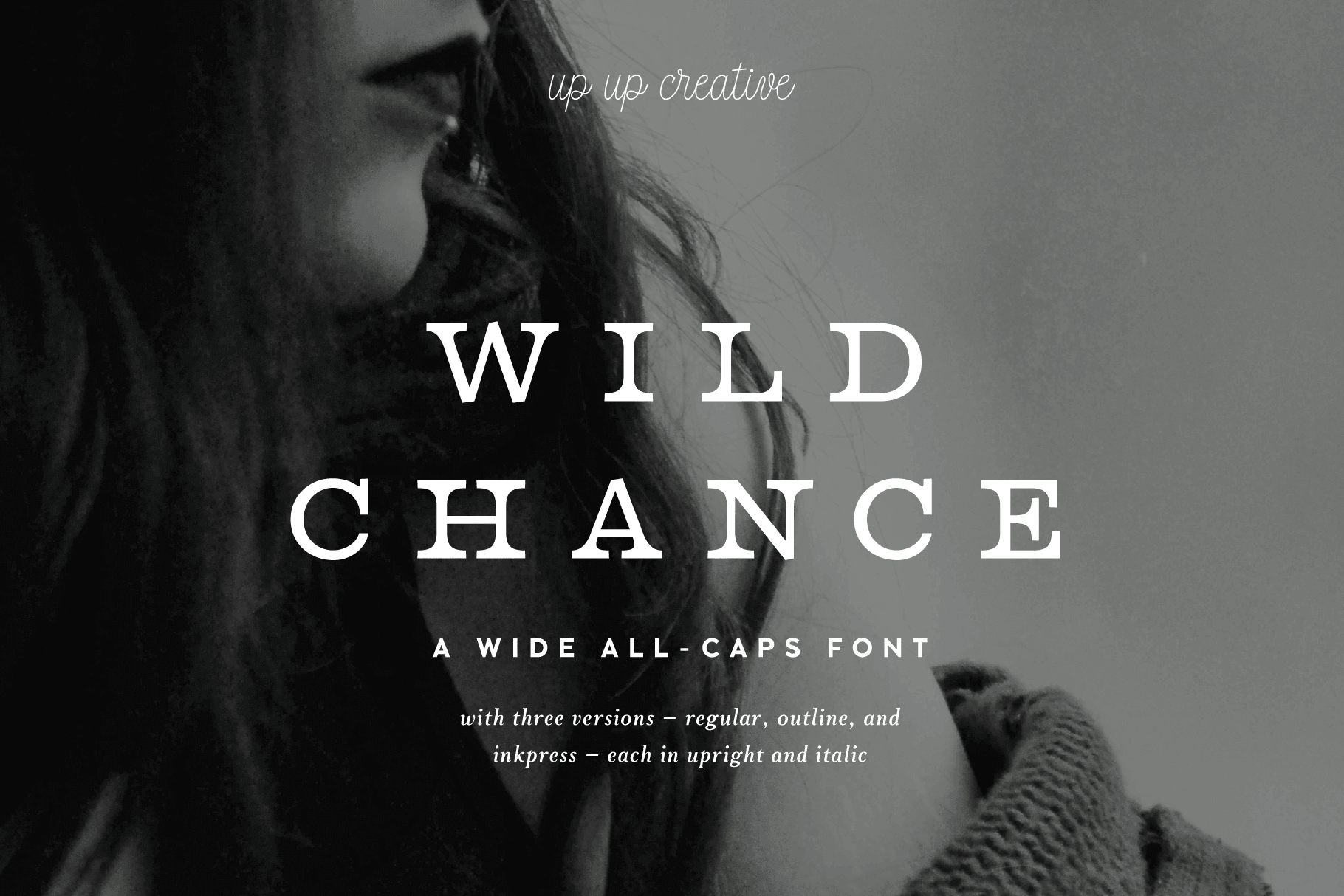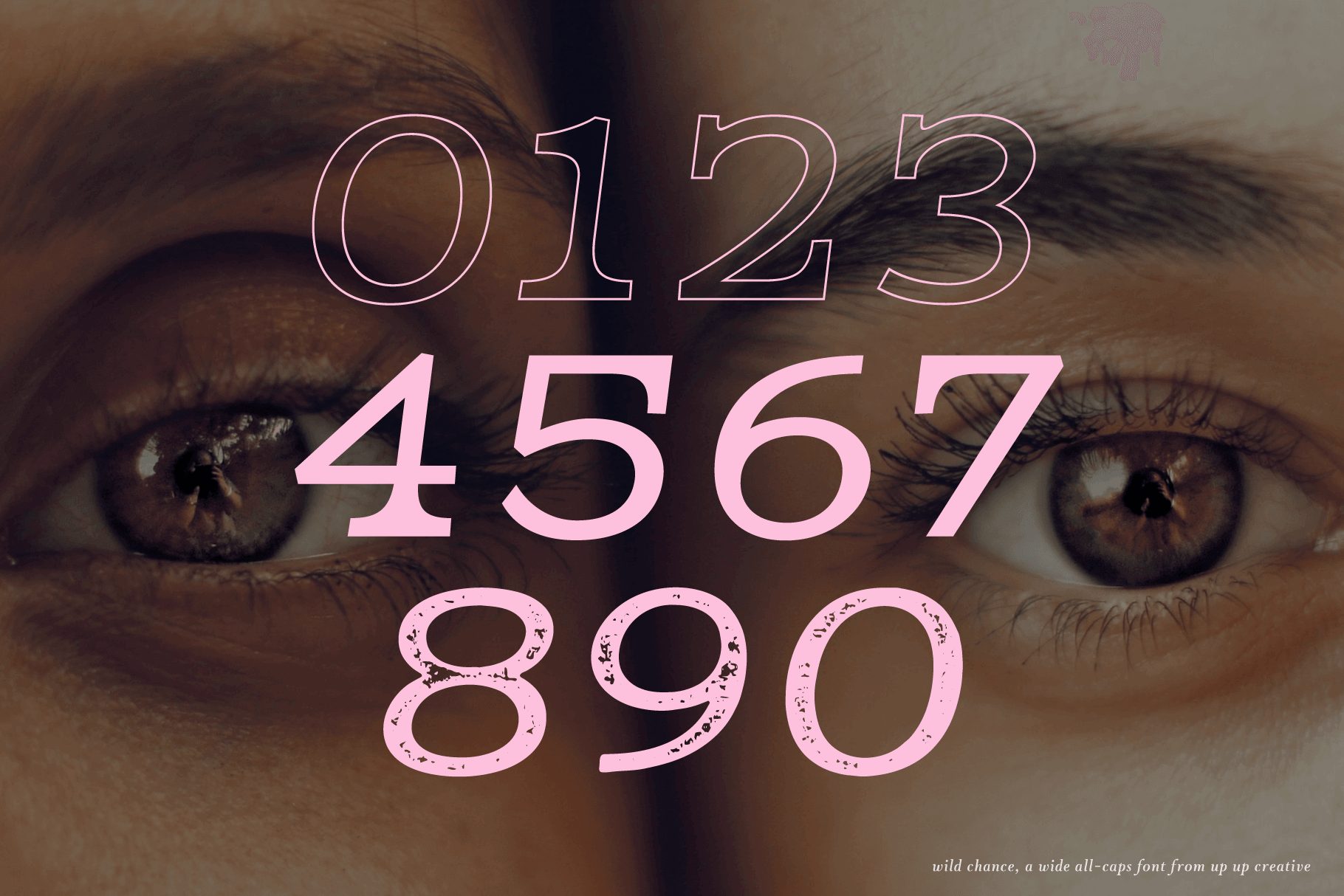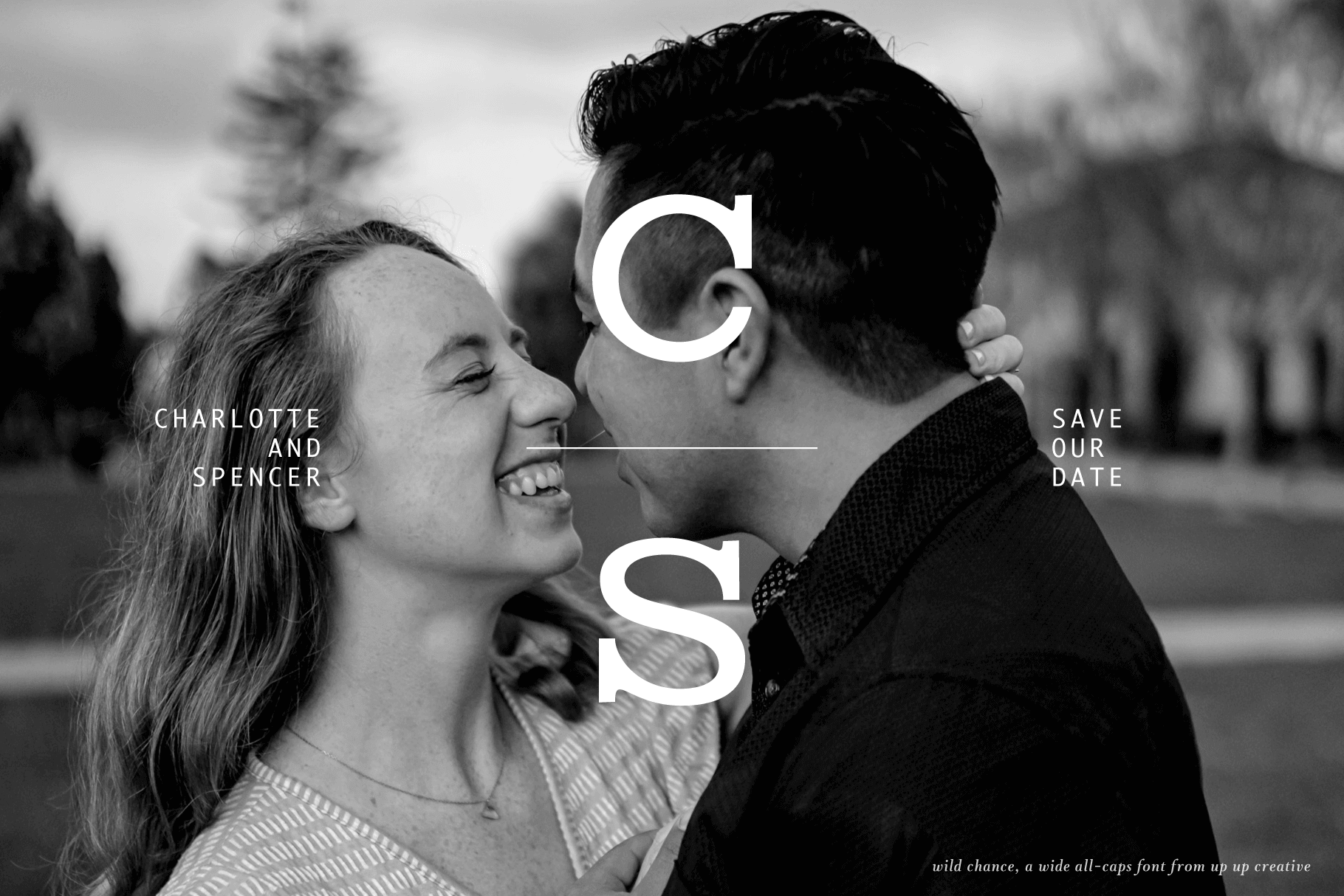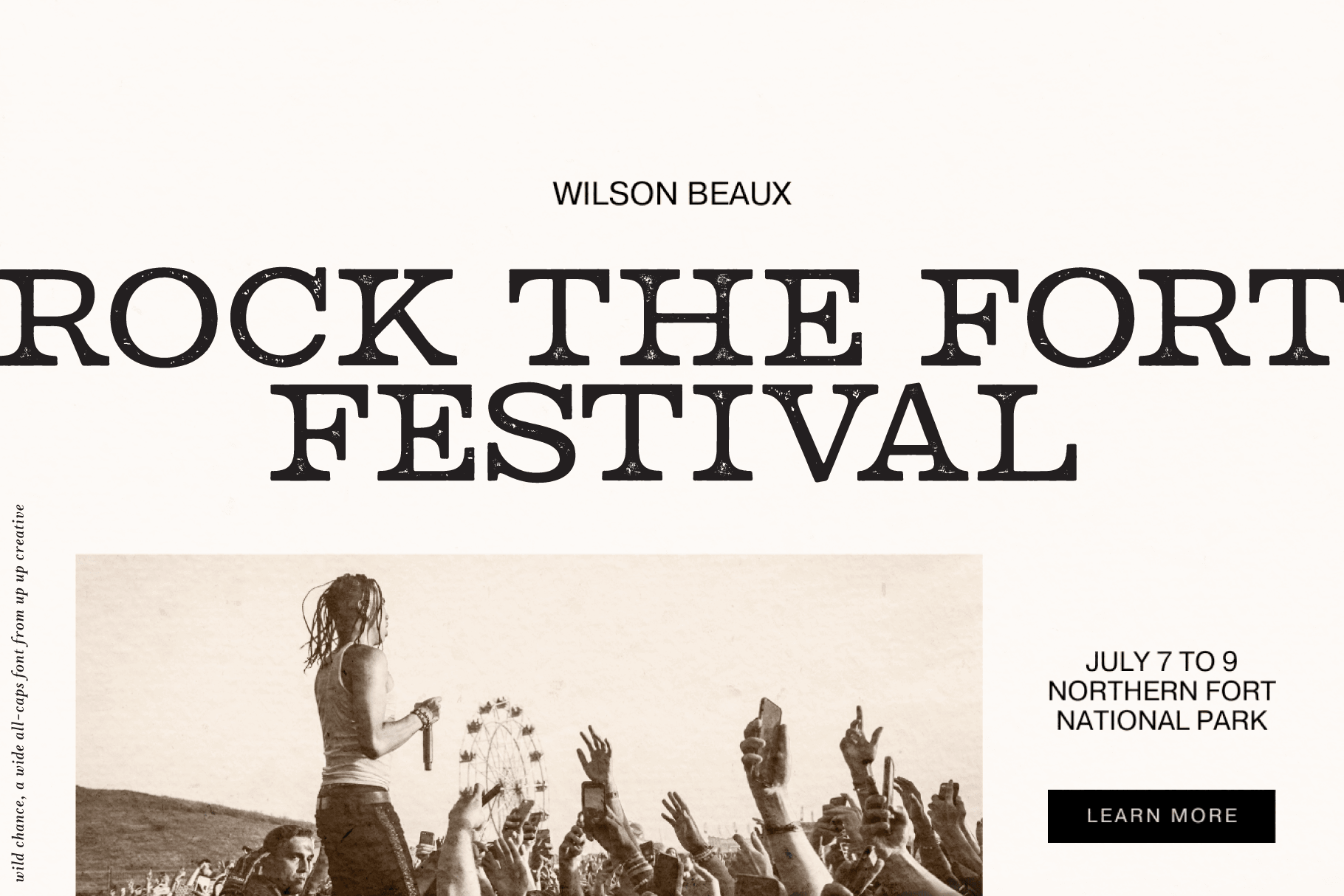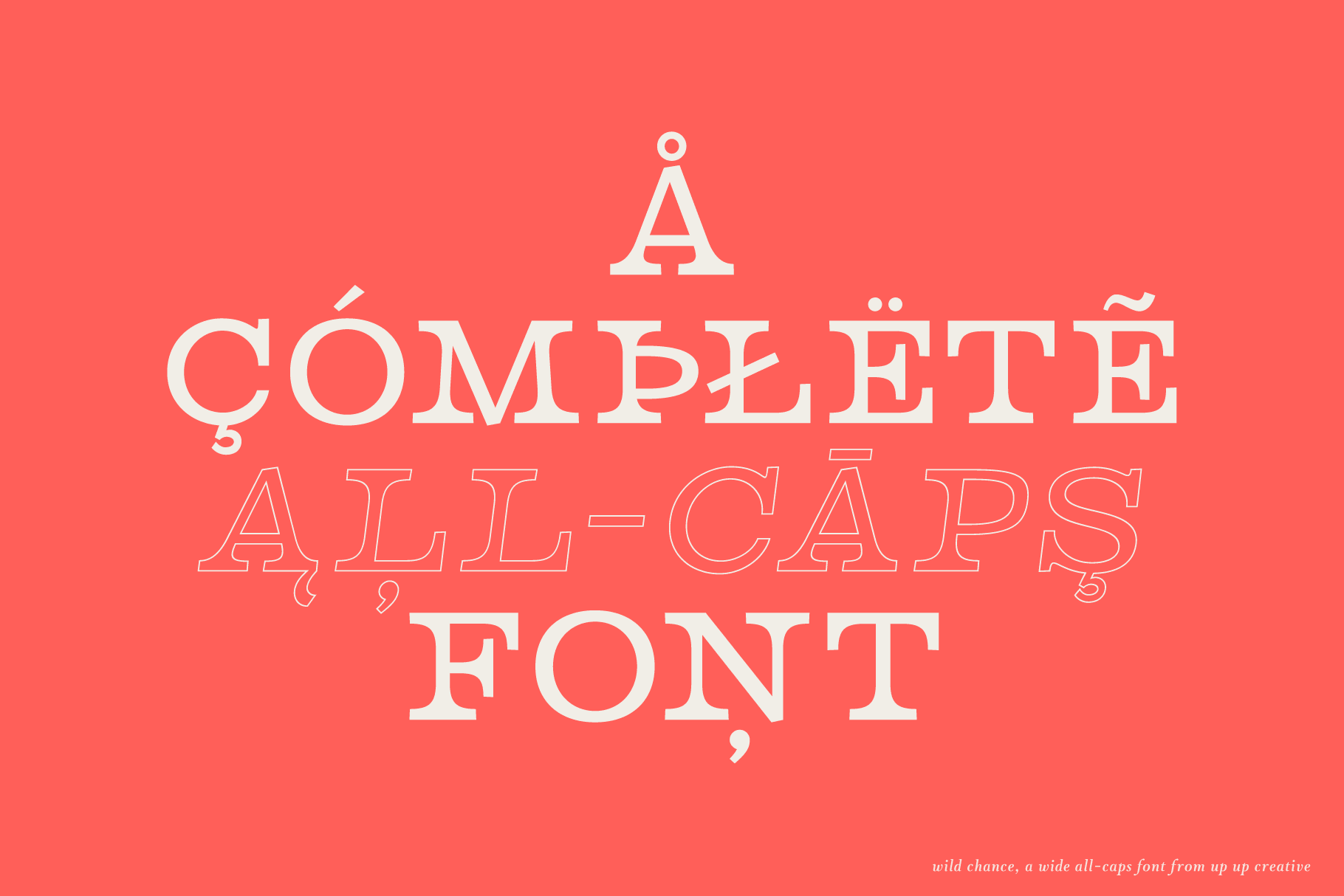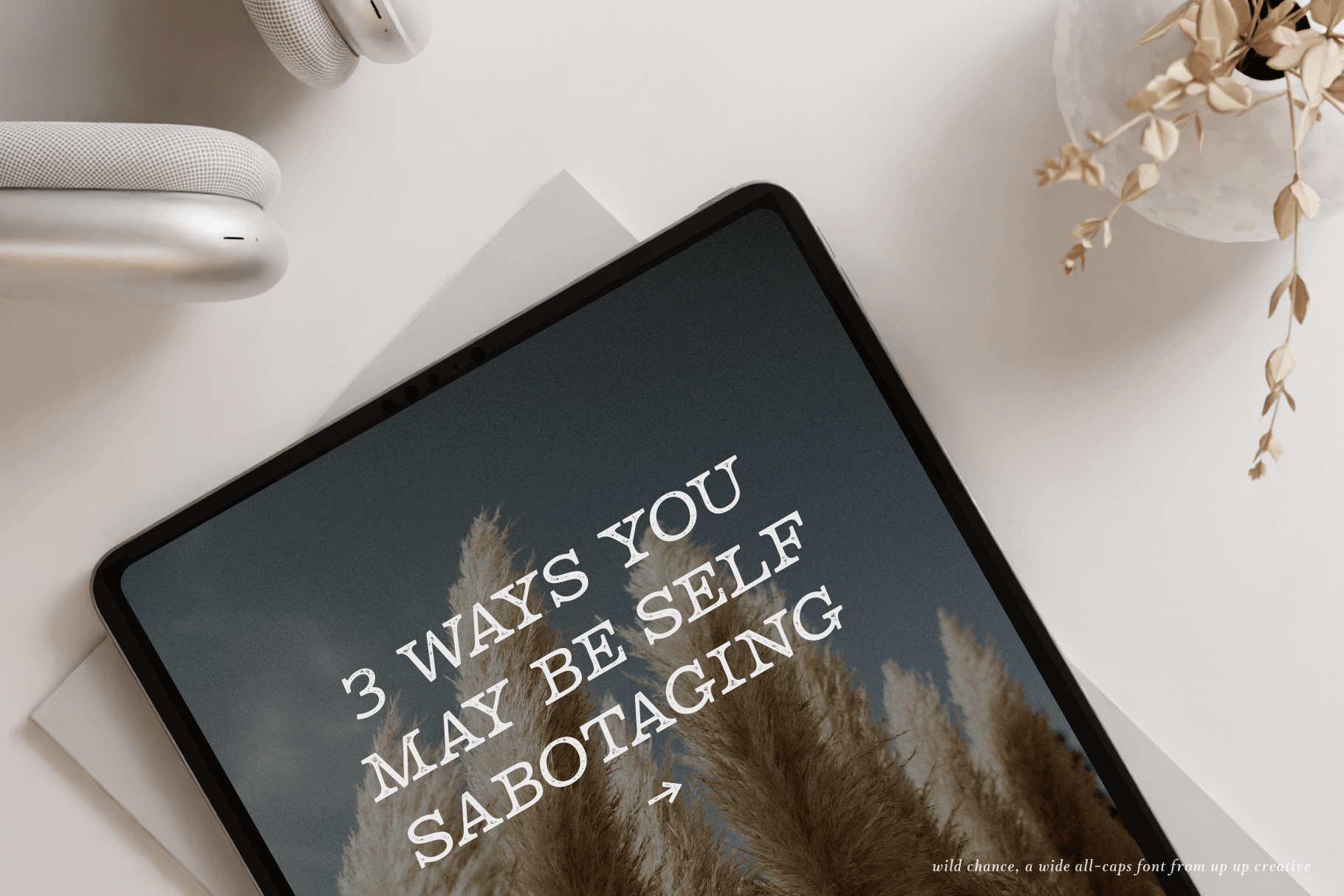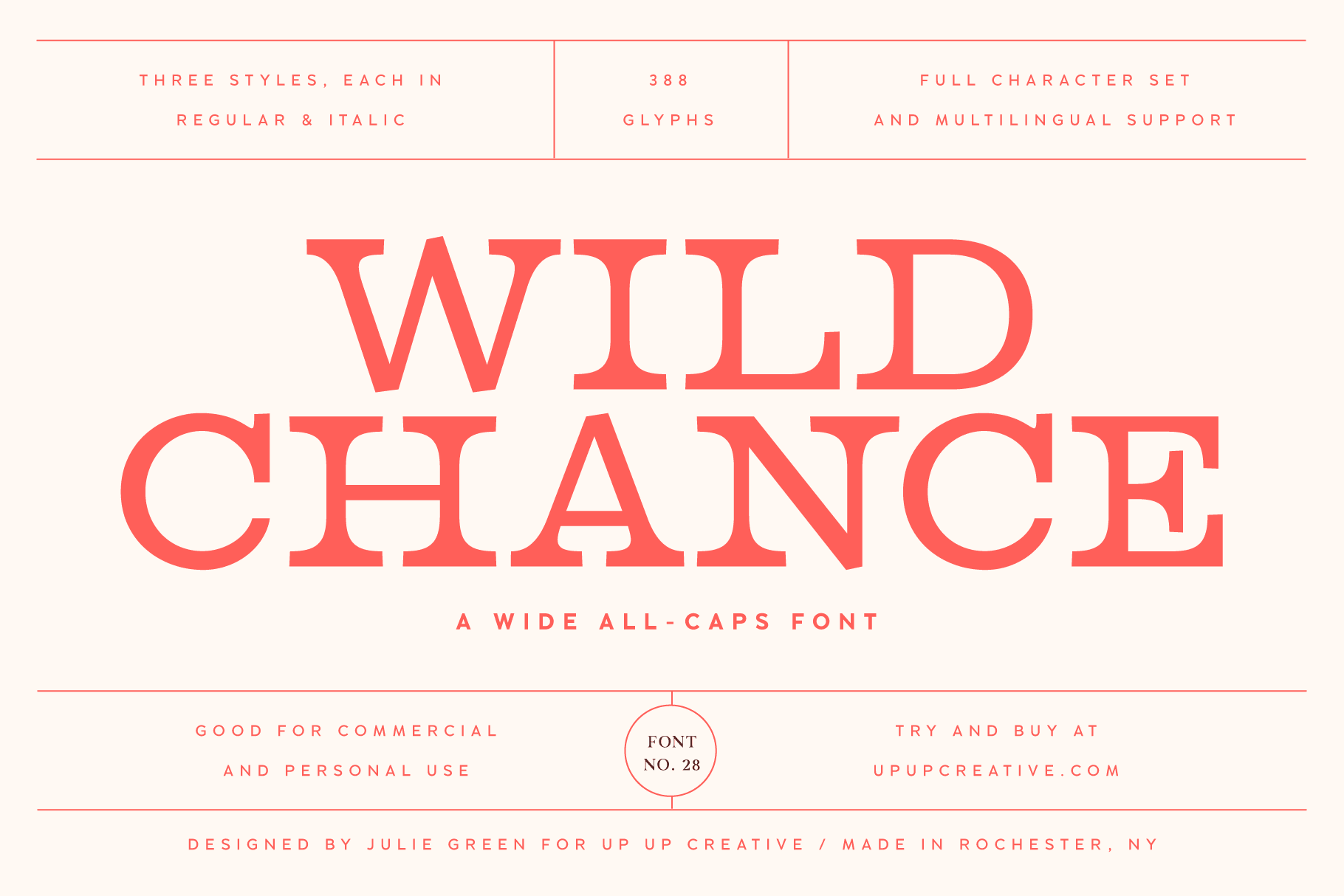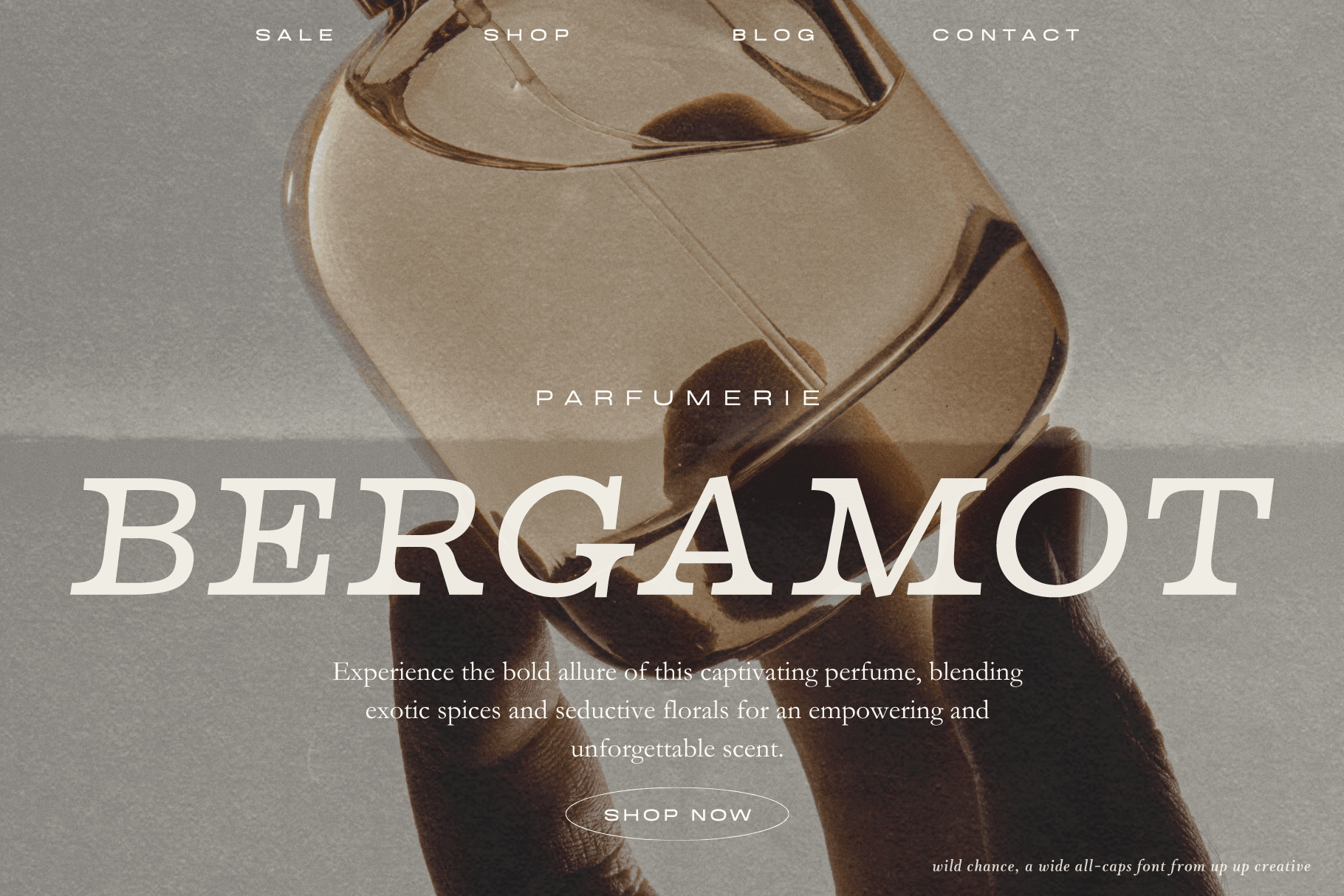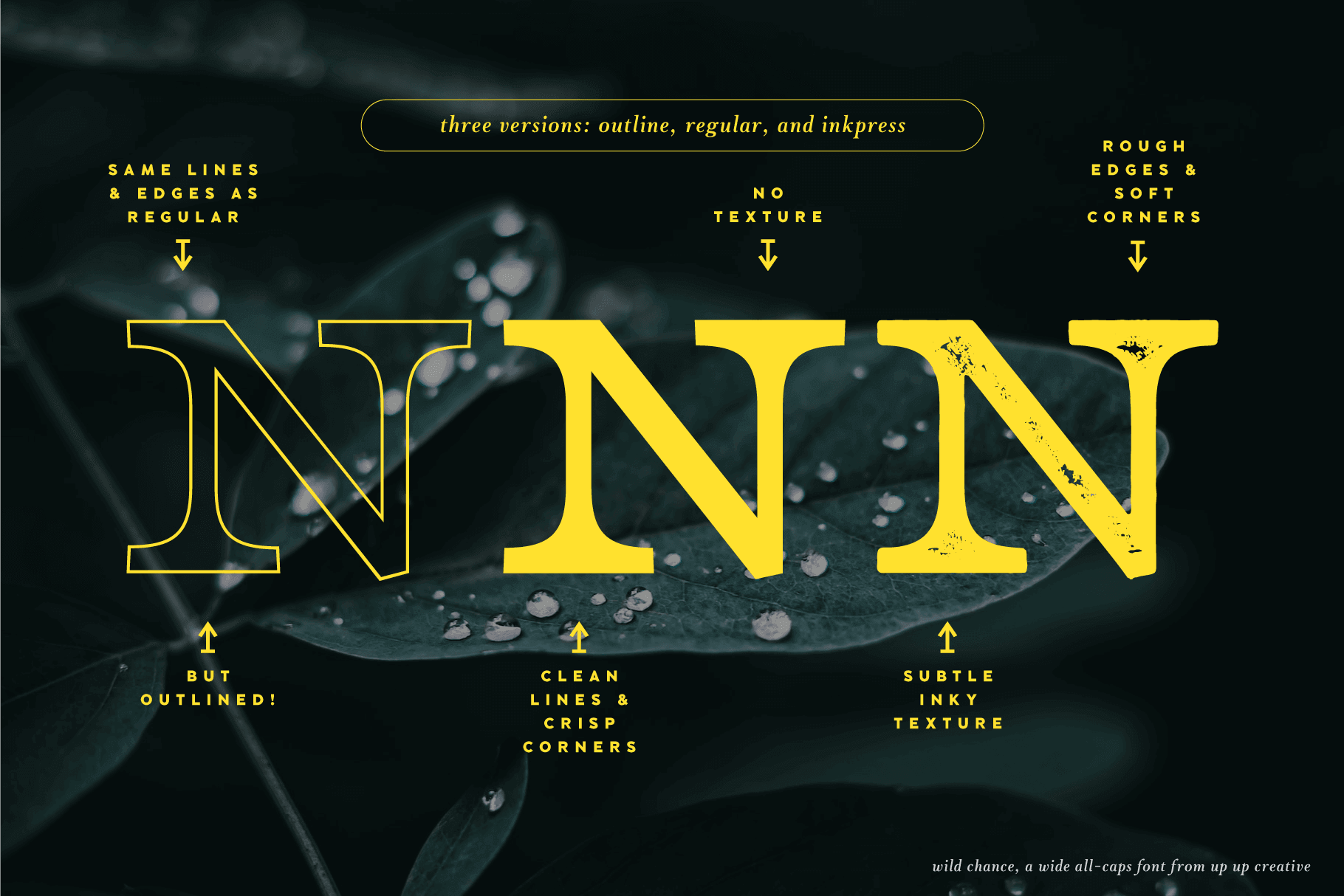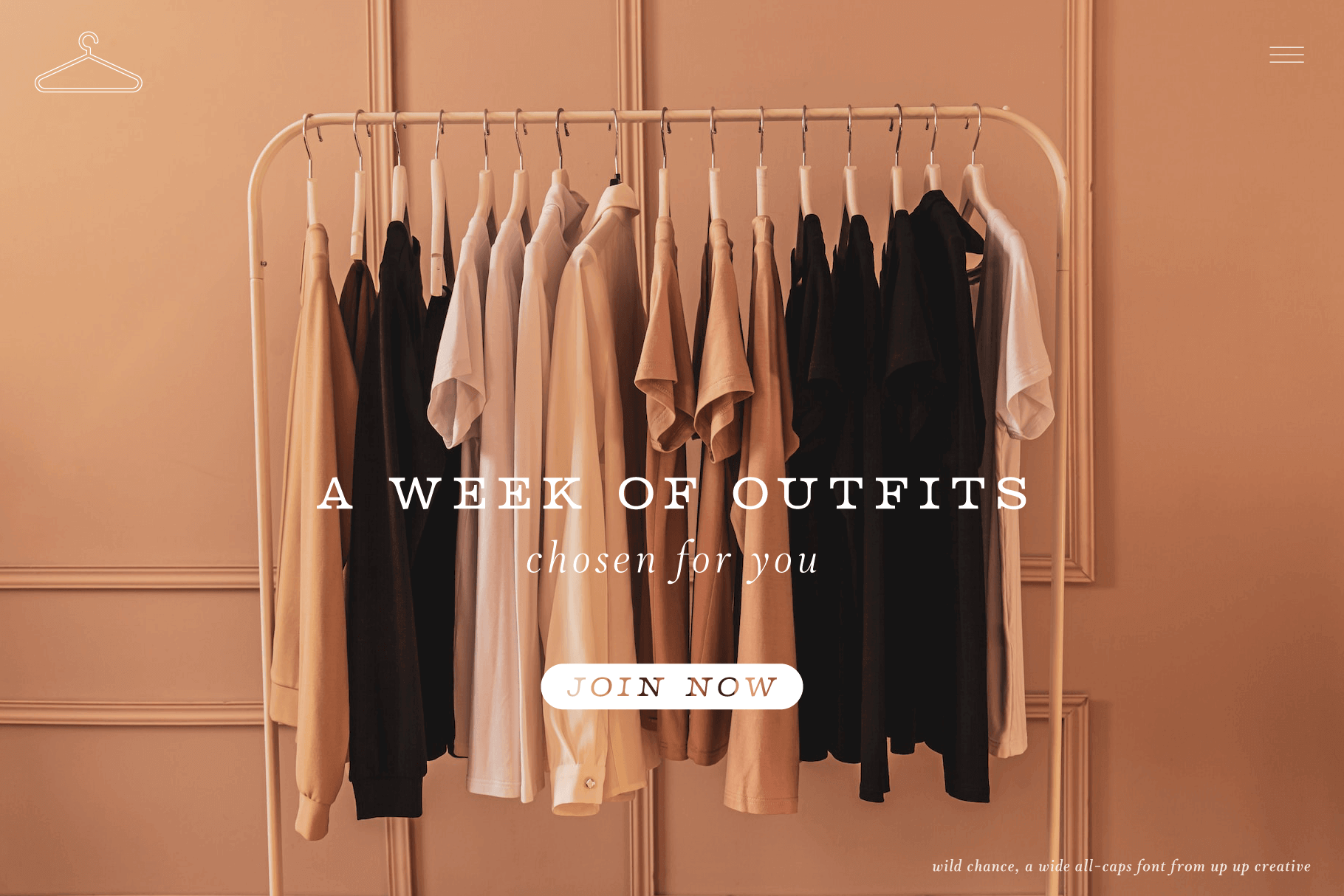
Wild Chance Complete Serif Font Family
Wild Chance, with its wide serifs and affable demeanor, is an all-caps expanded-width serif typeface designed to bring welcoming charm and a bit of broad-shouldered assertiveness to your design projects. Wild Chance is a versatile typeface available in three distinctive versions: regular, outline, and inkpress. Each version comes complete with both italic and upright variations, providing a total of six font files to suit a variety of design needs.
Wild Chance includes the following OpenType features:
- standard ligatures
- localized forms (multi-language and multi-currency support)
- fractions, ordinals, subscripts, and superscripts
Includes 2 ligatures
- Includes 388 glyphs
- 3 Versions (Regular, Outline, and Inkpress), each in Upright and Italic